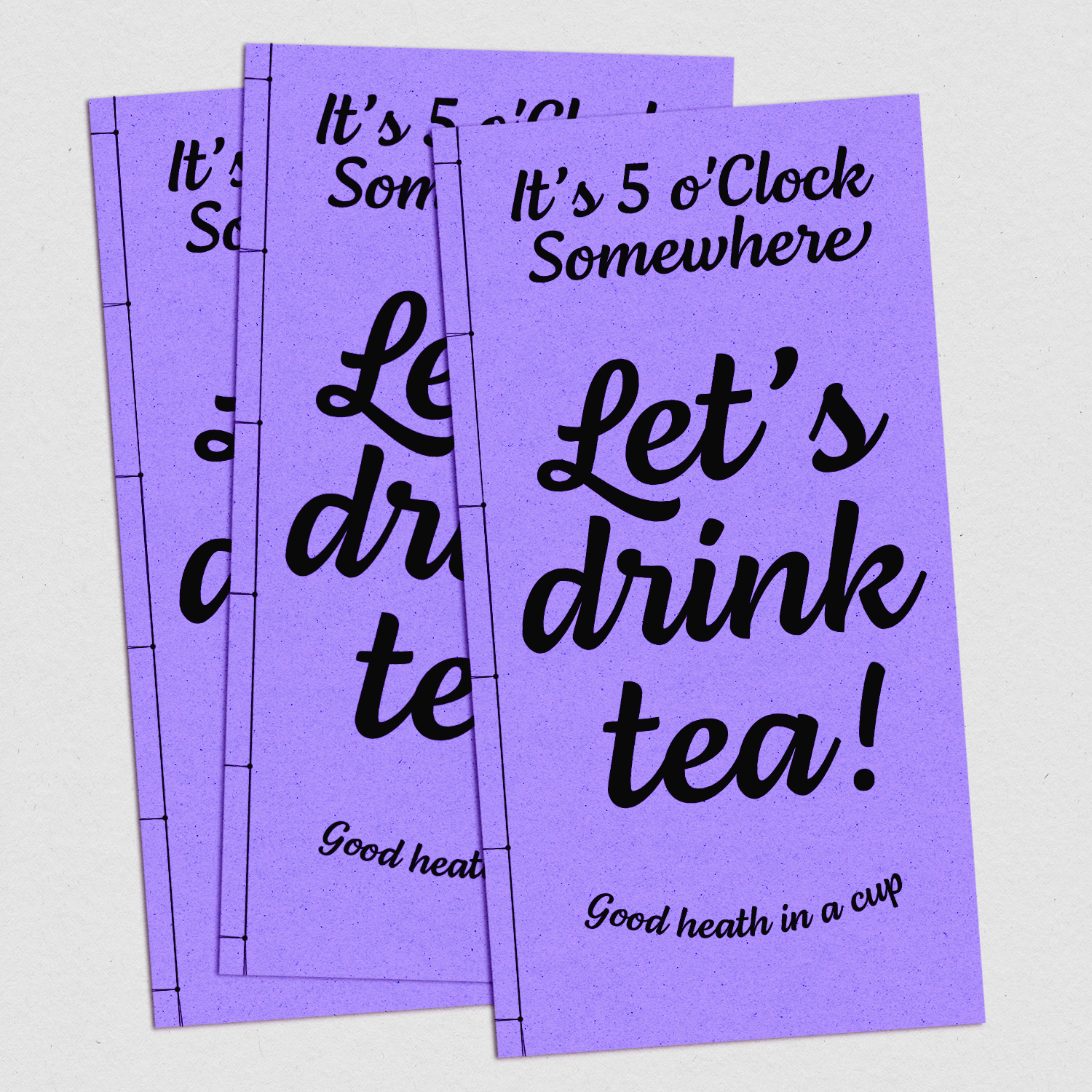
Lemongrass Script
About Lemongrass Script
Lemongrass is a connected script typeface for display use inspired by brush lettering and the ocean and the strong winds from Porto. It has low contrast and smooth connections to get a good rhythm in the text. Lemongrass is great for branding and packaging where it will shine, but it can also be used in small texts creating beautiful content. Lemongrass has lots of ligatures, swashes, and alternative shapes that will allow making your brand unique. It supports most western European languages making it a more helpful display font. Lemongrass Caps comes to complement the main style. The Caps are brush-like skeletons more straightforward in the text in all caps.
Features
Contextual Alternates, Stylistic Alternates, Swash, Discretionary Ligatures, Standard Ligatures, Case-sensitive Forms, Superscript, Fractions